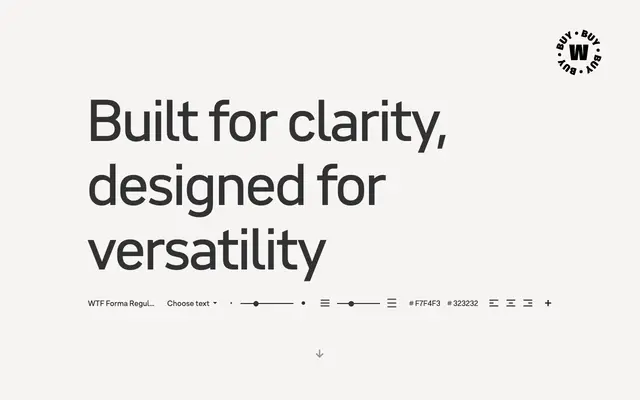
WTF Forma
A DIN-influenced grotesque spanning five widths and five weights, built for corporate brand systems that need warmth alongside formality.
Fifty styles cover five widths from Compressed to Wide, each in five weights from Thin to Heavy with matching italics, giving brand designers a single family that can handle everything from tight display headlines to running text. The design takes cues from DIN's regulated geometry while softening the result enough to feel approachable rather than purely technical. Aimed squarely at multinational companies and B2B contexts where legibility and a professional tone must coexist.
Described as inspired by DIN's clarity and structure, WTF Forma is a functional, orderly grotesque sans with a contemporary corporate character, spanning multiple widths from Compressed to Wide.